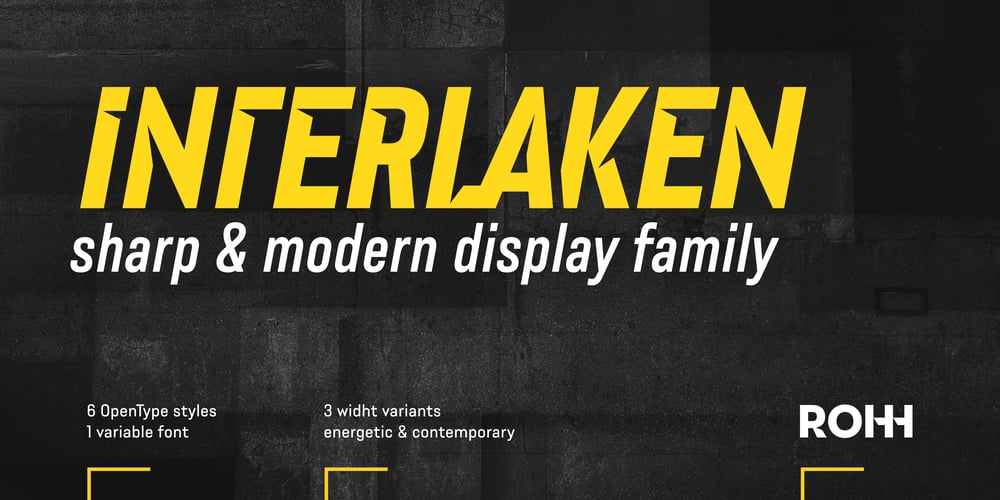
Interlaken Font Family was designed by Roch Modrzejewski and published by ROHH. Interlaken contains 7 styles and family package options. Interlaken™ is a modern display & branding typeface allowing to design creative logotypes, posters and headlines with ease.It is an uppercase family of six OpenType fonts and one 2-axis variable font, packed with features such as stylistic alternates and tons of original ligatures.The family’s purpose is to make the creative process of designing logotype a blast. It has a wide set of OpenType features crafted especially to make your life easier, allowing you to accomplish your projects in less time.Interlaken has a powerful and very modern character, it comes in three width variants, making it a good fit in various design scenarios. Its cutout details make it look unique and create an impression of inner shadows when set on a dark background.Interlaken is a great typographic tool for such industries as sports, fitness, modern technology, fashion and gaming. It works perfect as a pairing typeface with Rothorn, Conthey and Conthey Inline and Axalp Grotesk.